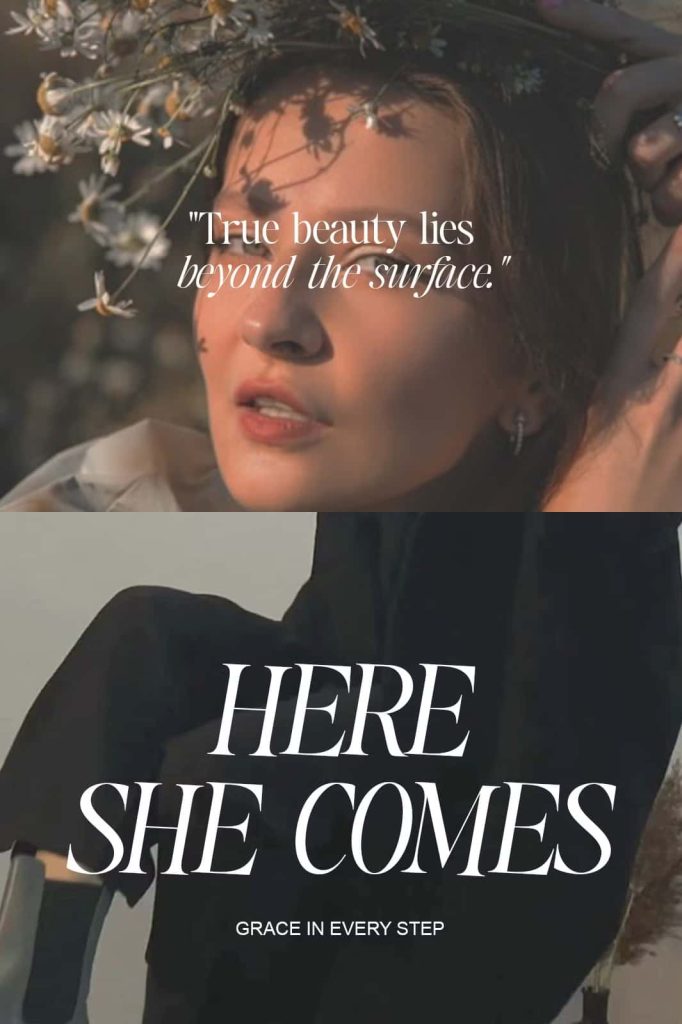
The Kingsy Serif Typeface
The Kingsy is a premium serif typeface that combines timeless elegance with modern versatility. Carefully crafted to deliver refined typography, this sophisticated font family is designed for creatives who want to build polished and memorable visual identities. Whether you are developing a luxury brand, designing editorial layouts, creating invitations, or producing premium packaging, The Kingsy provides the flexibility and style needed to elevate every project.
Featuring clean lines, balanced proportions, and graceful letterforms, The Kingsy delivers exceptional readability while maintaining a luxurious appearance. Its carefully designed family includes nine unique styles, allowing designers to create beautiful typography with consistency across both print and digital media.
Nine Versatile Styles for Every Creative Need
The Kingsy offers a complete font family that adapts effortlessly to different design requirements. Each style maintains the signature elegance of the typeface while offering distinct visual characteristics that allow greater creative freedom.
The font family includes:
- Regular
- Italic
- Condensed
- Condensed Italic
- Expanded
- Expanded Italic
- Slanted
- Condensed Slanted
- Expanded Slanted
These carefully developed variations make it easy to establish typography hierarchy, combine contrasting styles, and maintain visual consistency throughout branding systems, publications, marketing materials, and digital interfaces.
Elegant Typography for Professional Branding
The Kingsy was designed to help businesses and designers communicate sophistication through typography. Its refined serif construction creates a strong visual identity that works particularly well for luxury brands, fashion labels, beauty products, lifestyle companies, hotels, restaurants, and premium services.
The balanced letterforms allow logos and brand names to appear confident, stylish, and highly recognizable. Whether displayed on business cards, storefront signage, websites, or product packaging, The Kingsy delivers a professional appearance that leaves a lasting impression.
Ideal for Editorial and Publishing Projects
Editorial designers will appreciate the versatility of The Kingsy when creating magazines, books, newspapers, catalogs, brochures, and annual reports. Its clean serif structure provides excellent readability while adding an elegant visual tone to headlines, titles, pull quotes, and feature pages.
The availability of condensed, expanded, and italic styles enables designers to build dynamic layouts without sacrificing consistency. From magazine covers to luxury publications, The Kingsy enhances every page with classic sophistication.
Create Beautiful Invitations and Stationery
The timeless aesthetic of The Kingsy makes it an outstanding choice for formal invitations and premium stationery. Wedding invitations, engagement announcements, greeting cards, event programs, certificates, and thank-you cards all benefit from its graceful appearance.
The elegant serif details create a luxurious atmosphere that complements both modern minimalist layouts and traditional decorative designs. Combined with quality paper and thoughtful layouts, The Kingsy transforms simple typography into an unforgettable visual experience.
Perfect for Print and Digital Design
Modern designers require fonts that perform consistently across multiple platforms. The Kingsy has been developed to maintain excellent clarity whether displayed on high-resolution screens or professionally printed materials.
You can confidently use The Kingsy for:
- Luxury branding
- Logo design
- Editorial layouts
- Magazine covers
- Book titles
- Packaging design
- Product labels
- Business cards
- Wedding invitations
- Greeting cards
- Website headers
- Landing pages
- Advertising materials
- Marketing campaigns
- Fashion lookbooks
- Restaurant menus
- Corporate presentations
Clean Lines with Timeless Appeal
One of The Kingsy’s greatest strengths is its ability to blend traditional serif elegance with contemporary design principles. The carefully balanced proportions create typography that feels both classic and modern, making it suitable for projects that require longevity rather than temporary design trends.
The clean letterforms ensure excellent legibility while preserving the refined details that define premium serif typography. This combination allows designers to create work that remains visually appealing for years to come.
Why Choose The Kingsy Serif Typeface?
- Elegant serif font family with timeless style.
- Includes nine professionally designed font styles.
- Perfect for luxury branding and logo design.
- Excellent readability for both headlines and display text.
- Suitable for editorial, publishing, and marketing materials.
- Ideal for invitations, stationery, and premium packaging.
- Works beautifully in both print and digital projects.
- Offers flexible typography for modern creative professionals.
Elevate Every Design with Sophisticated Typography
The Kingsy is more than just a serif typeface. It is a complete typography solution for designers seeking elegance, flexibility, and professional quality. With nine carefully crafted styles, this font family allows you to build cohesive branding systems, polished editorial layouts, luxurious invitations, and memorable marketing materials with ease.
If you want typography that communicates confidence, refinement, and timeless beauty, The Kingsy is an excellent addition to your font library. Its combination of classic serif elegance and modern versatility makes it a dependable choice for a wide range of creative projects, helping every design leave a sophisticated and lasting impression.